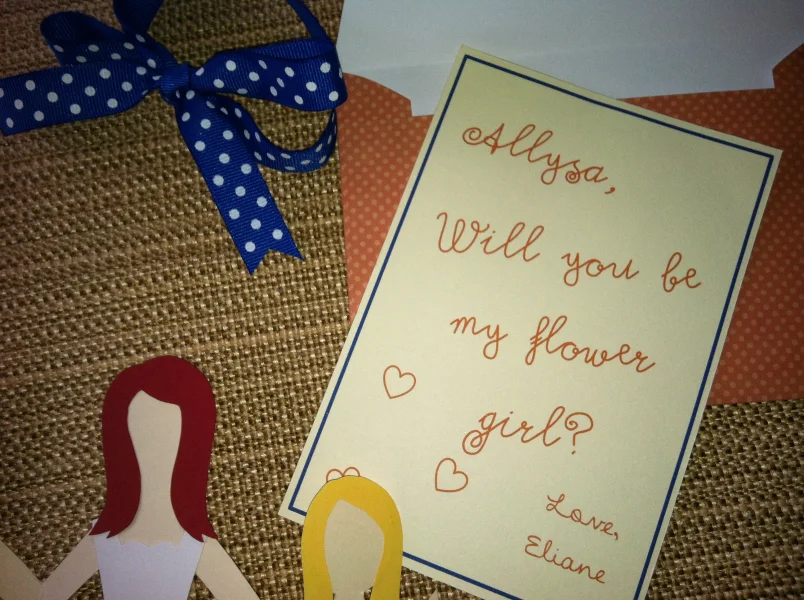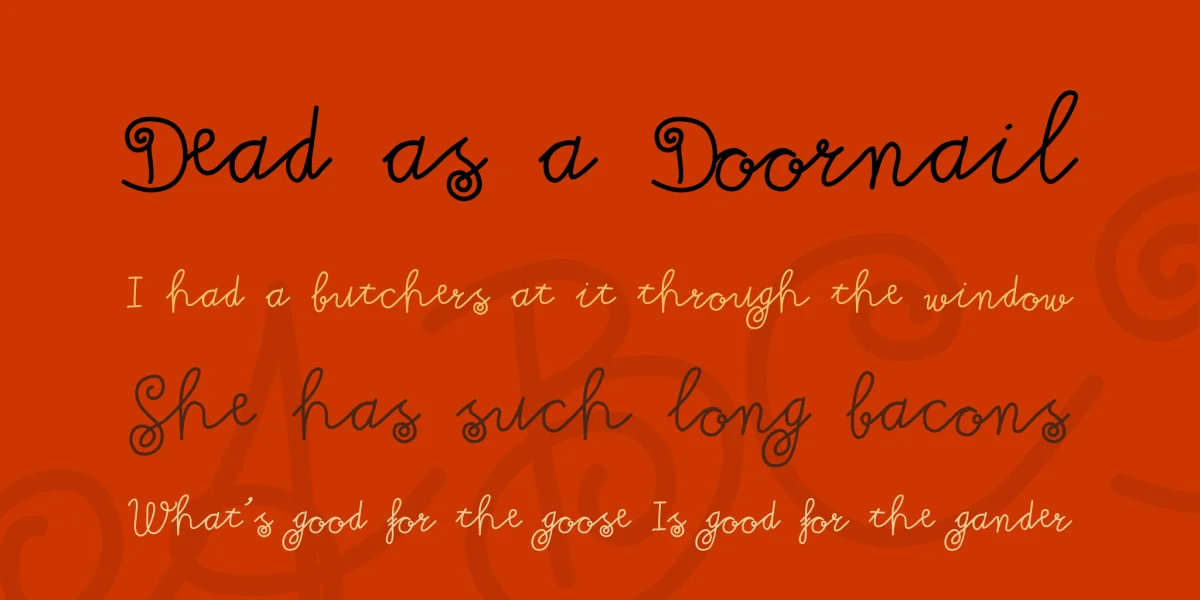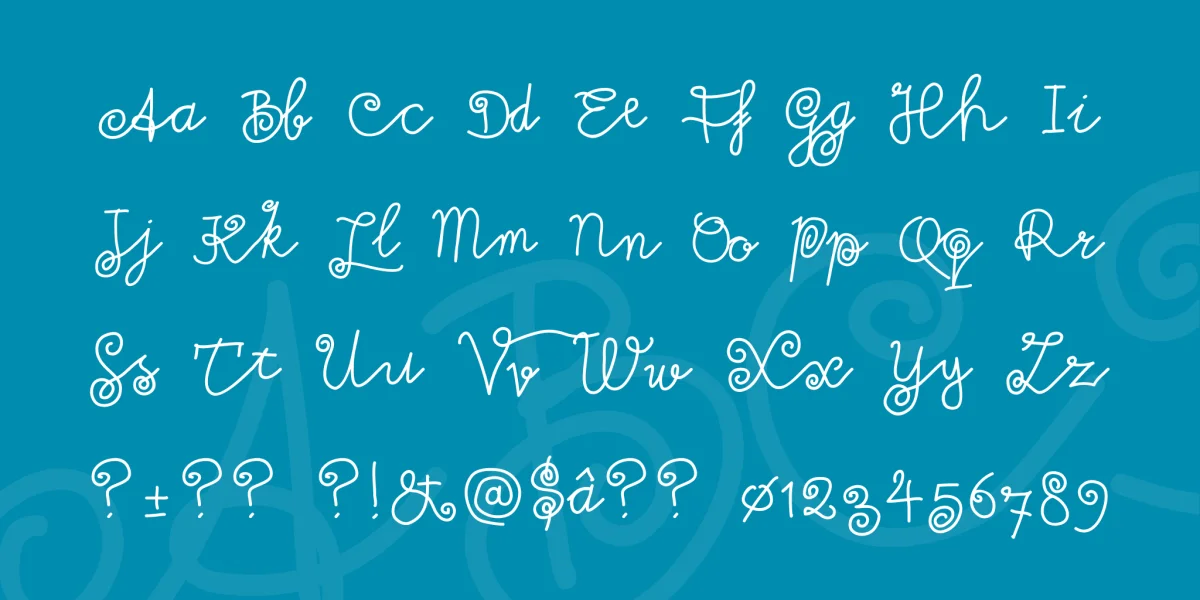
This one looks like my 11 year old daughter has written it. Not always in a straight line, and a little heavy on the curls. I'm pretty sure in two years time this font on prozac will be the new Comic Sans. Haha.